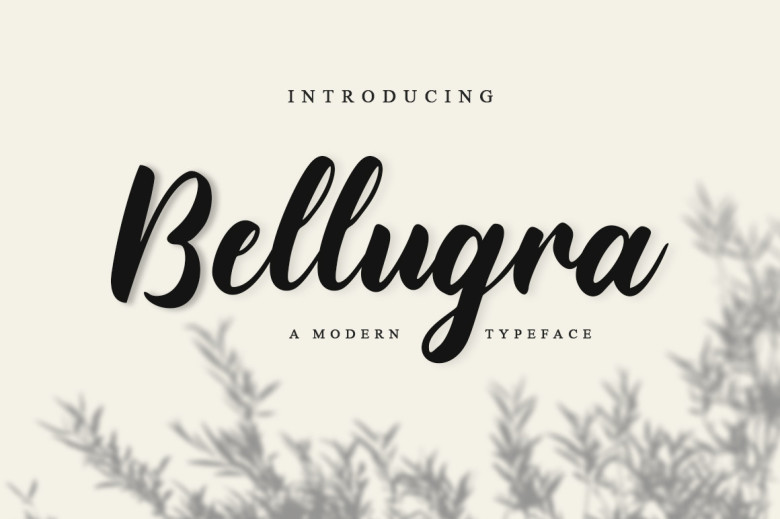
Bellugra Font
Bellugra is a lovely handwritten script font featuring charming, playful characters that seem to dance along the baseline. Add this font to your most creative ideas, and notice how it makes them stand out!
Bellugra Handwritten Script Font